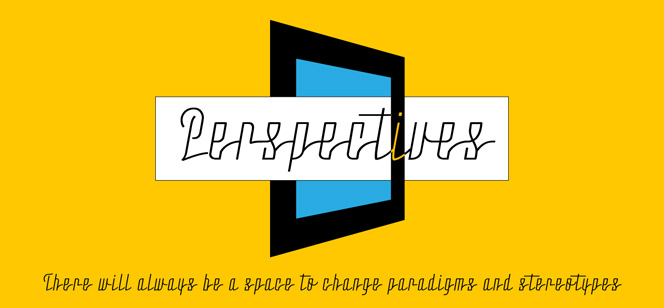
Moho Script
Moho Script by John Moore (John Moore Type Foundry) is an unconventional cursive Script family with a strong visual presence, part of the modernism inspired Moho superfamily. Moho Script typeface family features highly decorative outlook with certain reminiscences to the vintage automobiles chrome signage, plus a subtle Japanese influence. Moho Script is a rewarding display font working perfectly in logotype, advertising, and publishing design, especially in areas such as architecture, advanced technologies, fashion, etc.
Moho Script font family offers five weights: Thin, Light, Regular, Medium, Bold, and the inline Style Bold. Available are diverse OpenType options like contextual alternates, small caps, and swashes. With the OpenType feature Swash you can play with the overlapping letter “t” to achieve distinguishable effects. Moho Script typeface comes with an extensive character set for the Eastern and Western European languages.
John Moore is one of the most prolific typographic designers of Venezuela. He became a type designer in 1976 after he had studied in the Neumann Design Institute. Since then his works have been widely published, highly estimated and awarded. John Moore’s main focuses are novelty, creativity, quality and originality. Take a look at his Moho font, Moho Condensed font, Duvall font (award winner at the Bienal Tipos Latinos 2014), JMTF Robin font, Maracay font.